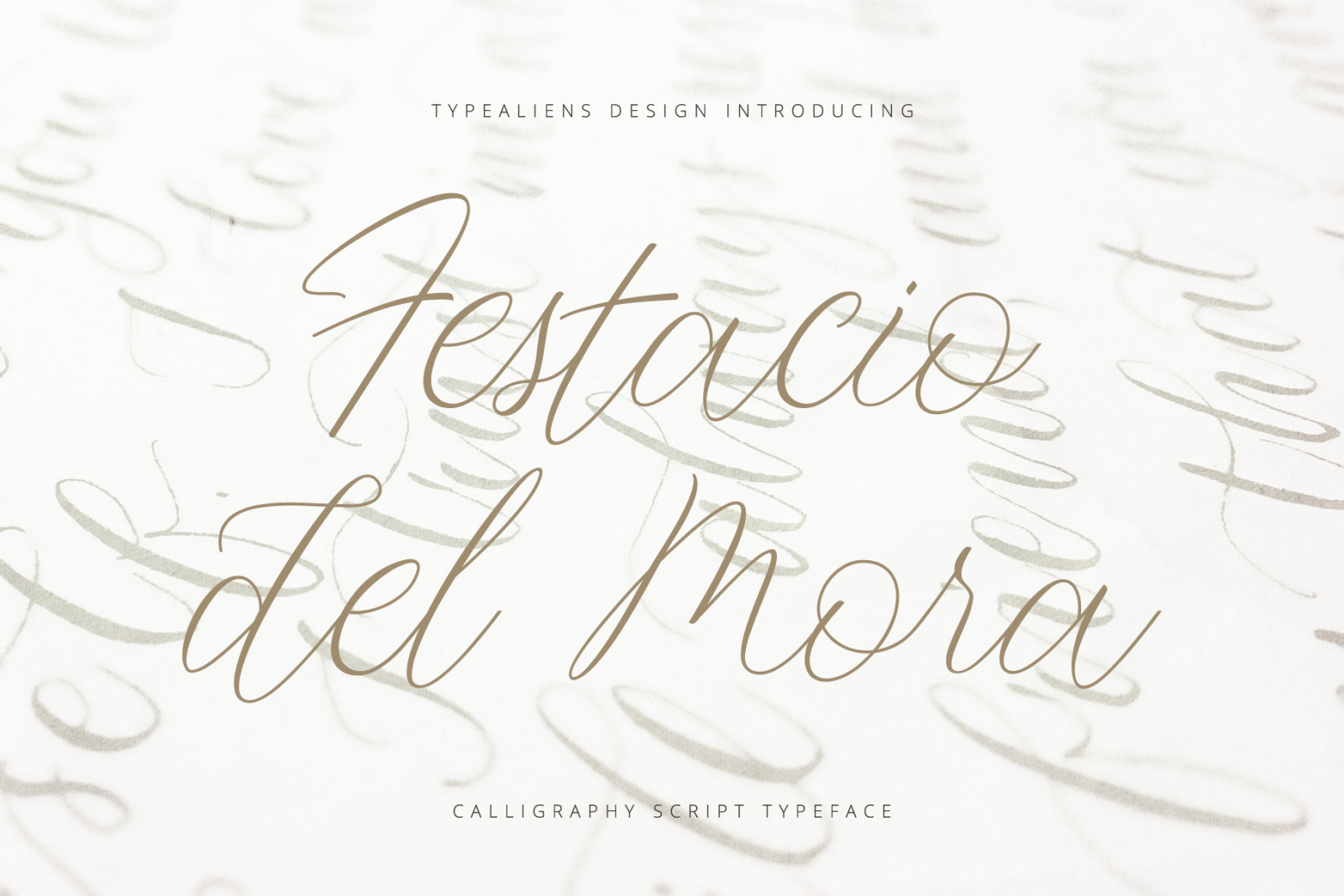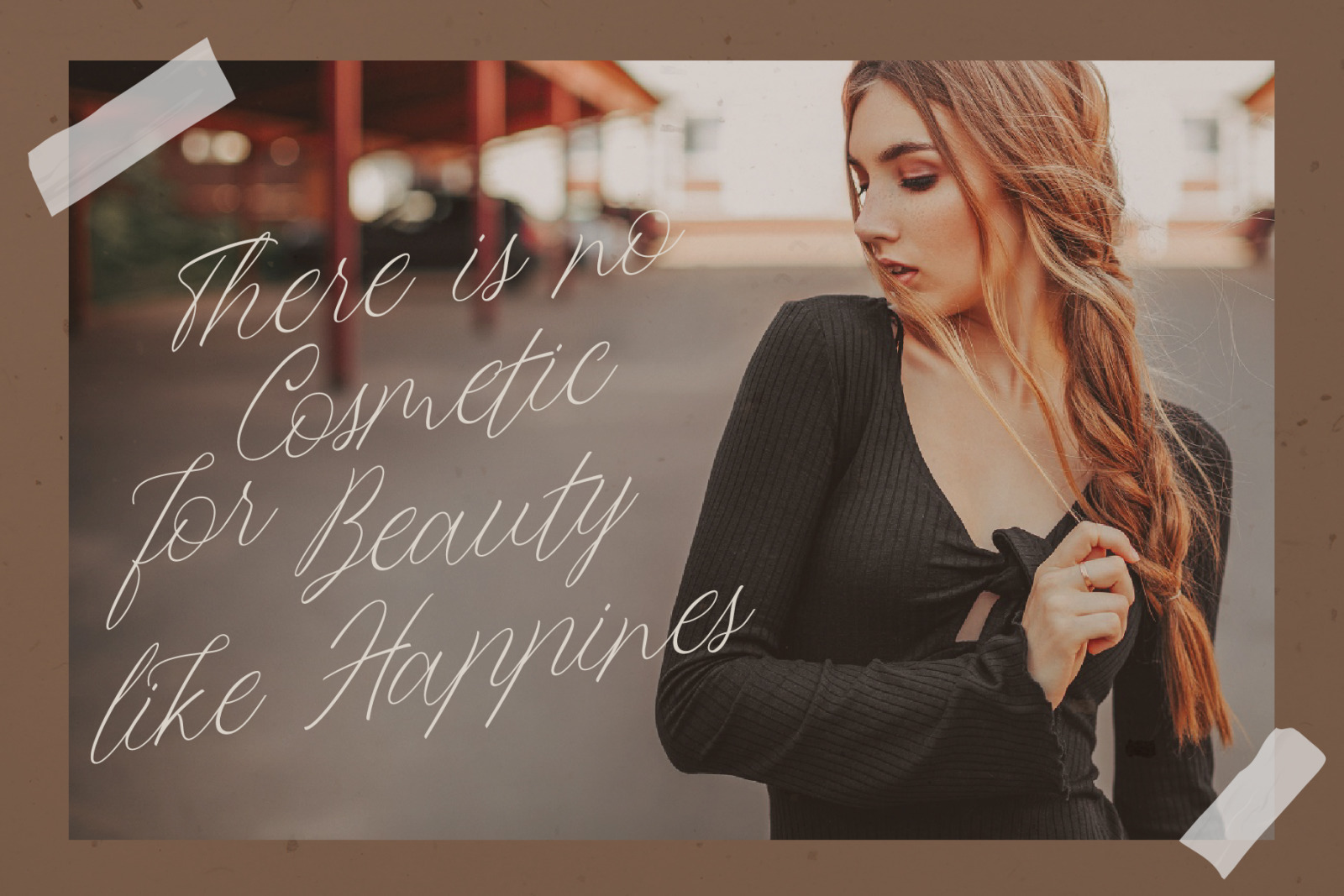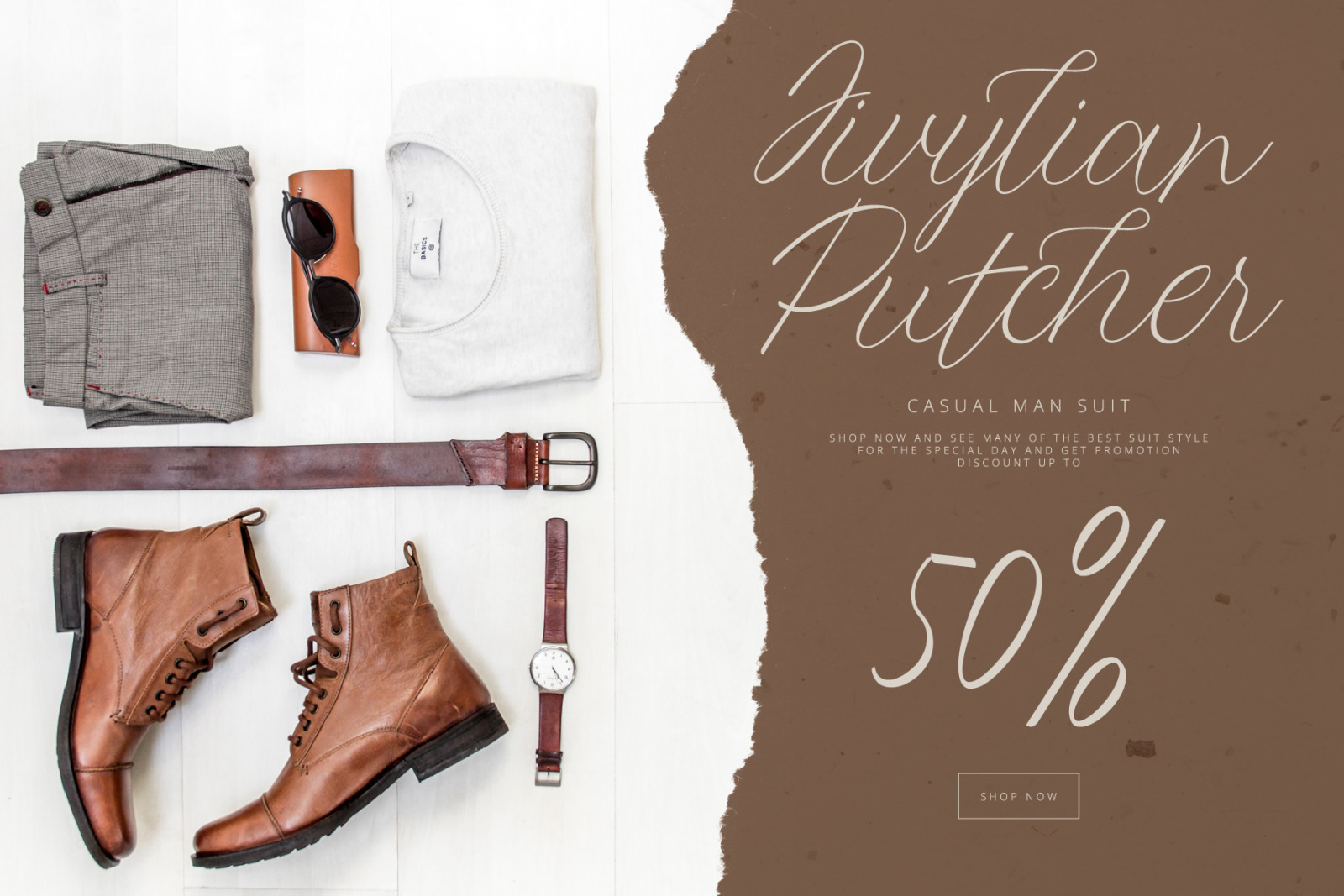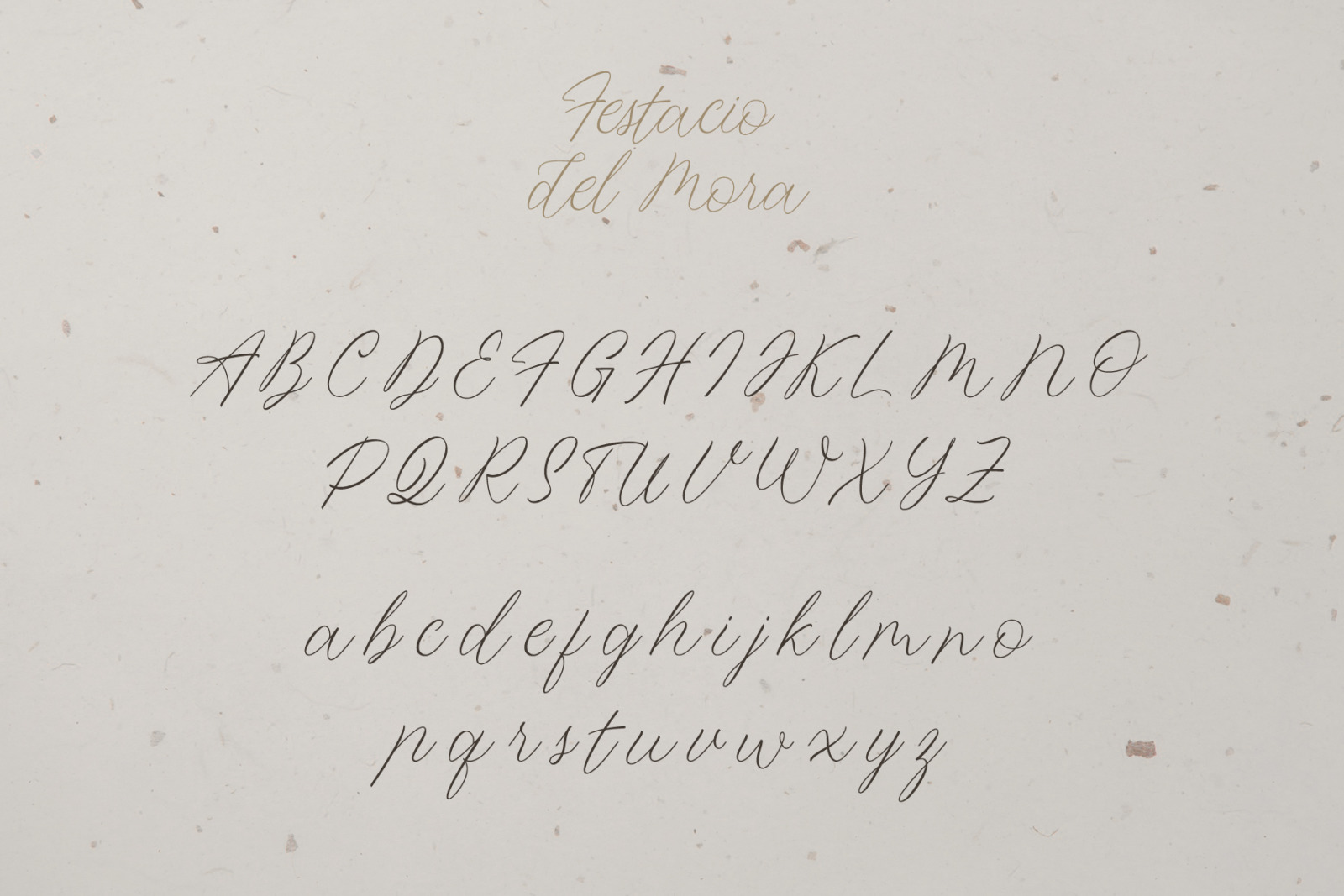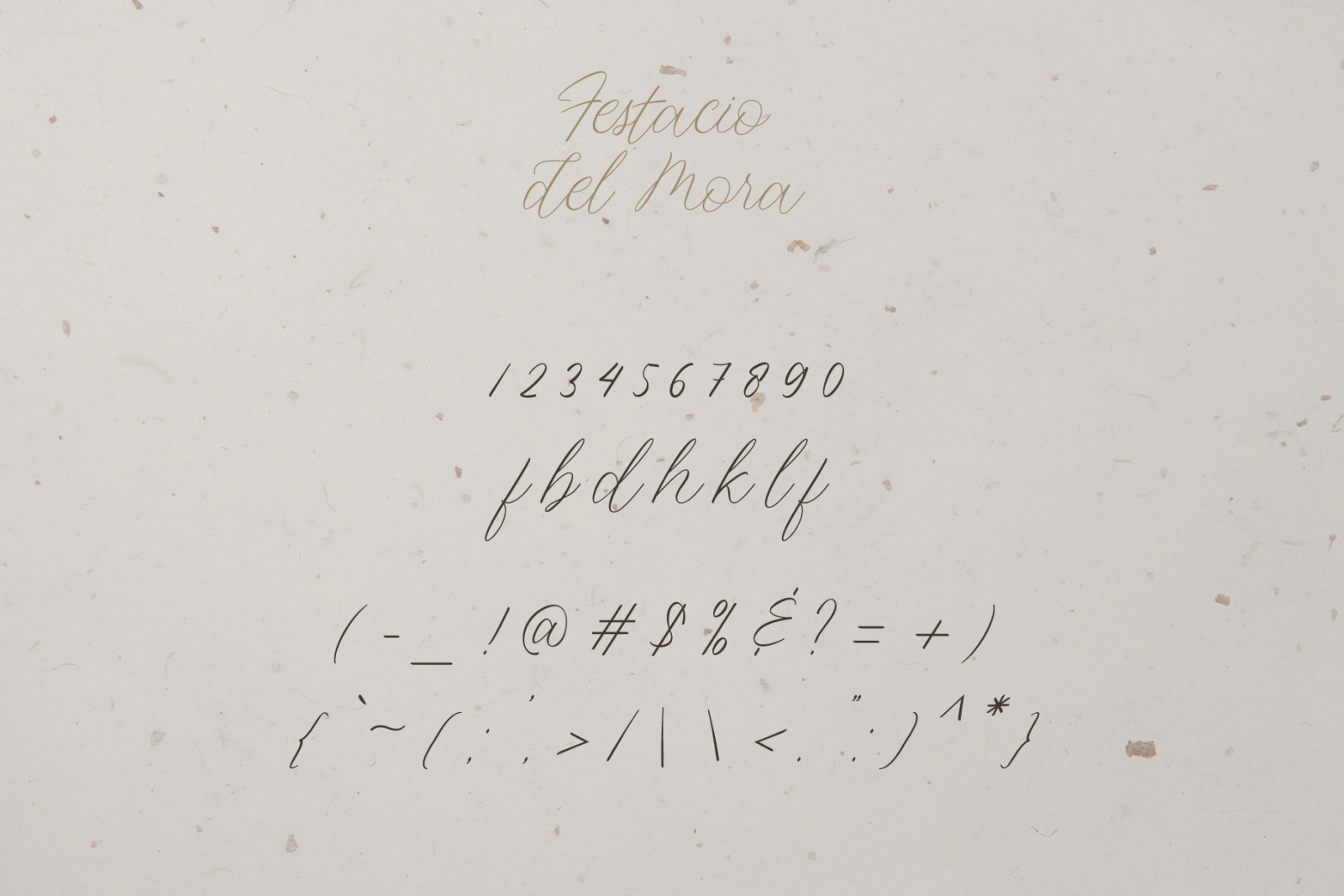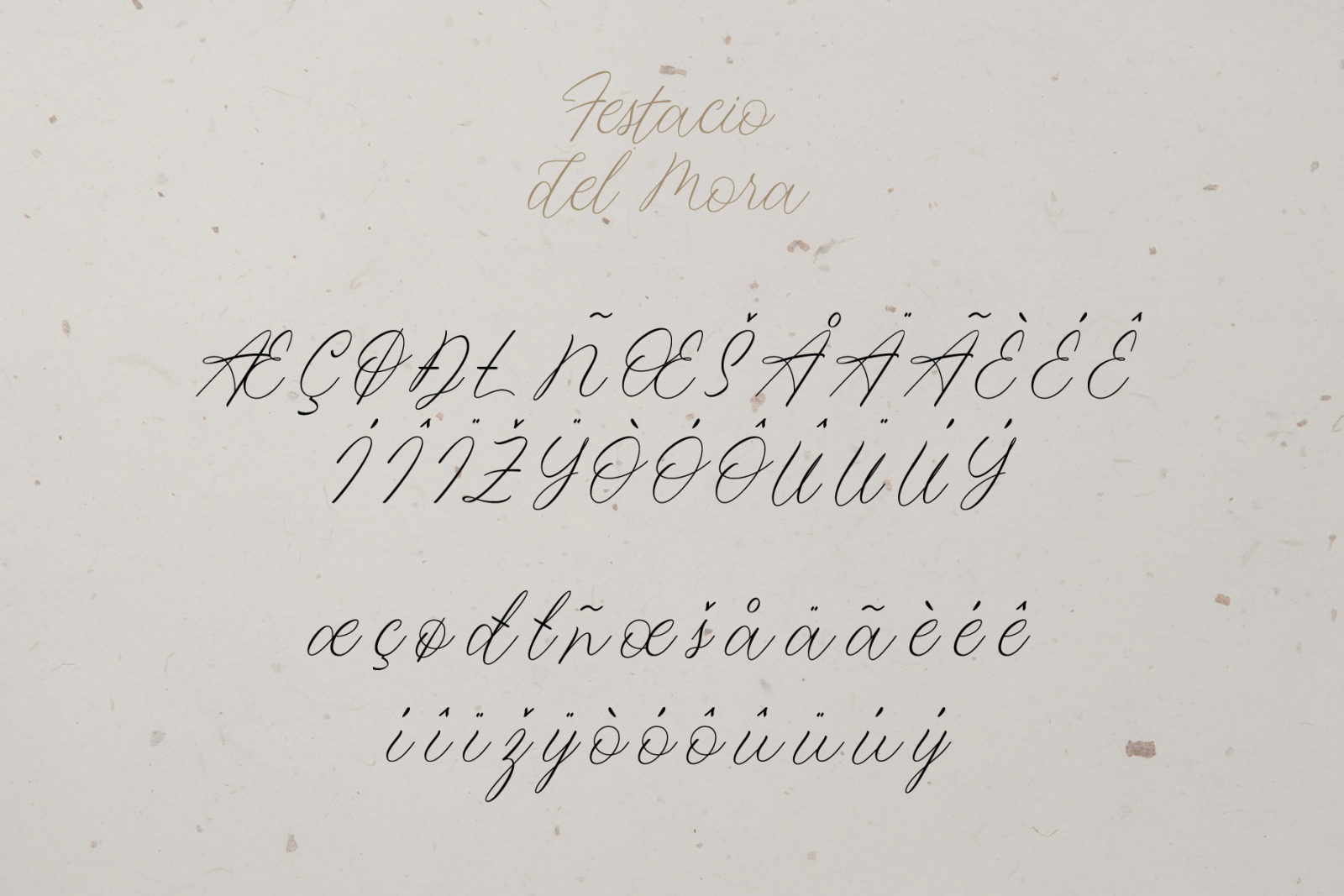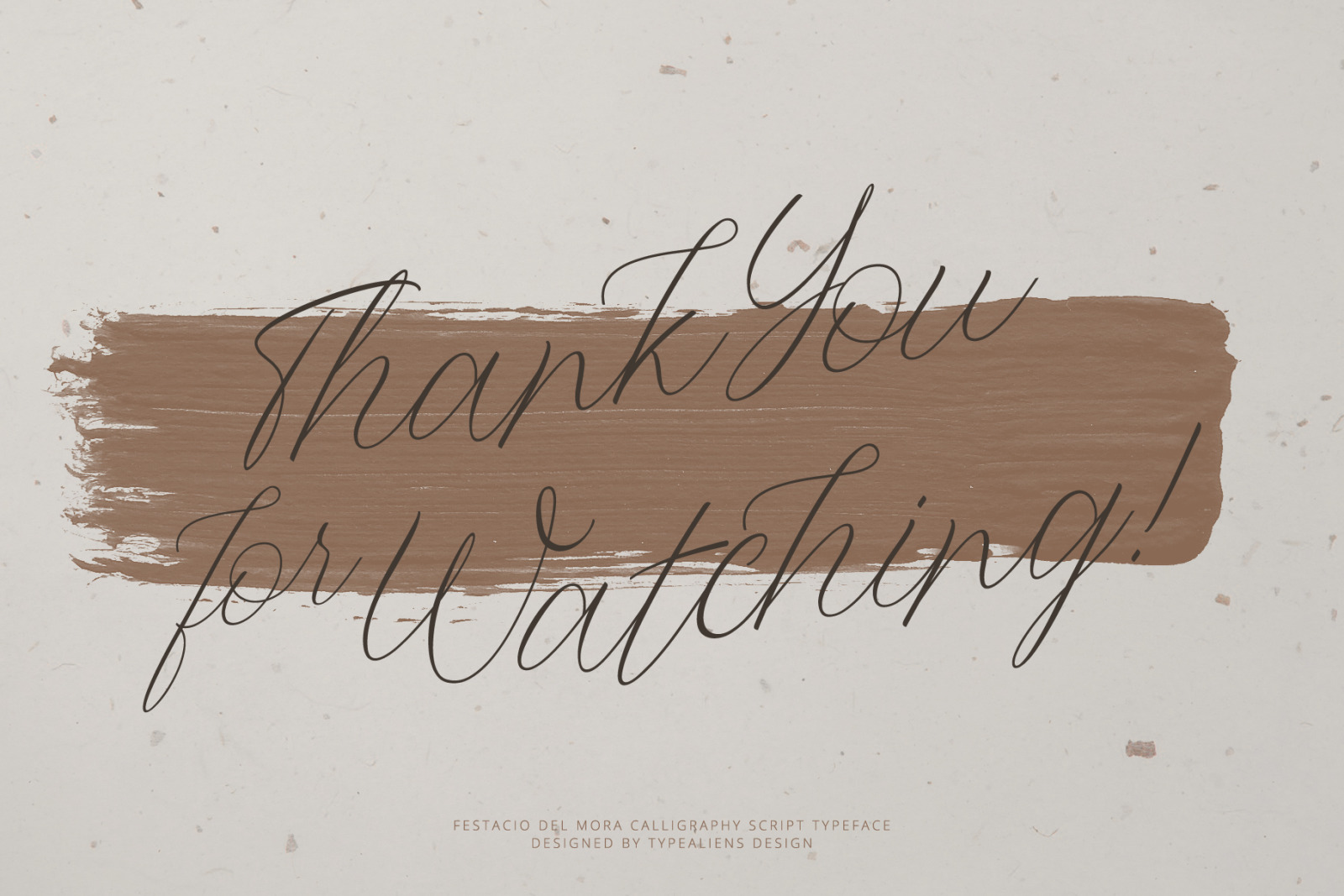
Festacio del Mora Font
FESTACIO DEL MORA is a calligraphy script typeface with a modern calligraphy style. Made from handwriting using calligraphy techniques, and trimmed during the vector process, resulting in a font with a handwriting style but neat.
It is suitable for making modern designs, such as branding on social media, names for wedding invitation designs, etc.